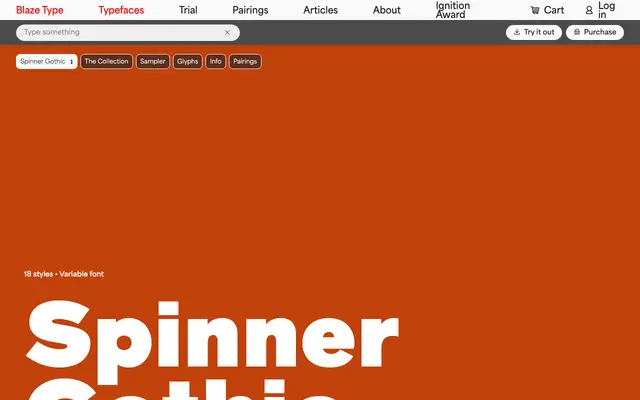
Spinner Gothic
A grotesque sans drawing on early 20th-century American Gothic lettering and German Grotesk traditions, originally conceived for a type specimen and named after the designer's mother's maiden name.
Developed initially for the Blaze Type Specimen No.1, Spinner Gothic began as a revival of the circular engraving on the Swiss 5-franc coin before evolving into a freer fusion of typographic references. Nine weights with matching italics span Thin through Black, all available as a variable font with over 800 glyphs per style and a range of OpenType features. The result sits between American gothic weight and European grotesk restraint, suited to editorial, identity and print work that calls for classical grounding without period pastiche.
Described explicitly as drawing from American Gothic fonts of the early 20th century and German Grotesk lettering, with circular engraving influences from Swiss coinage. The mix of American gothic and German grotesk traditions firmly places it in the grotesque sans-serif category.